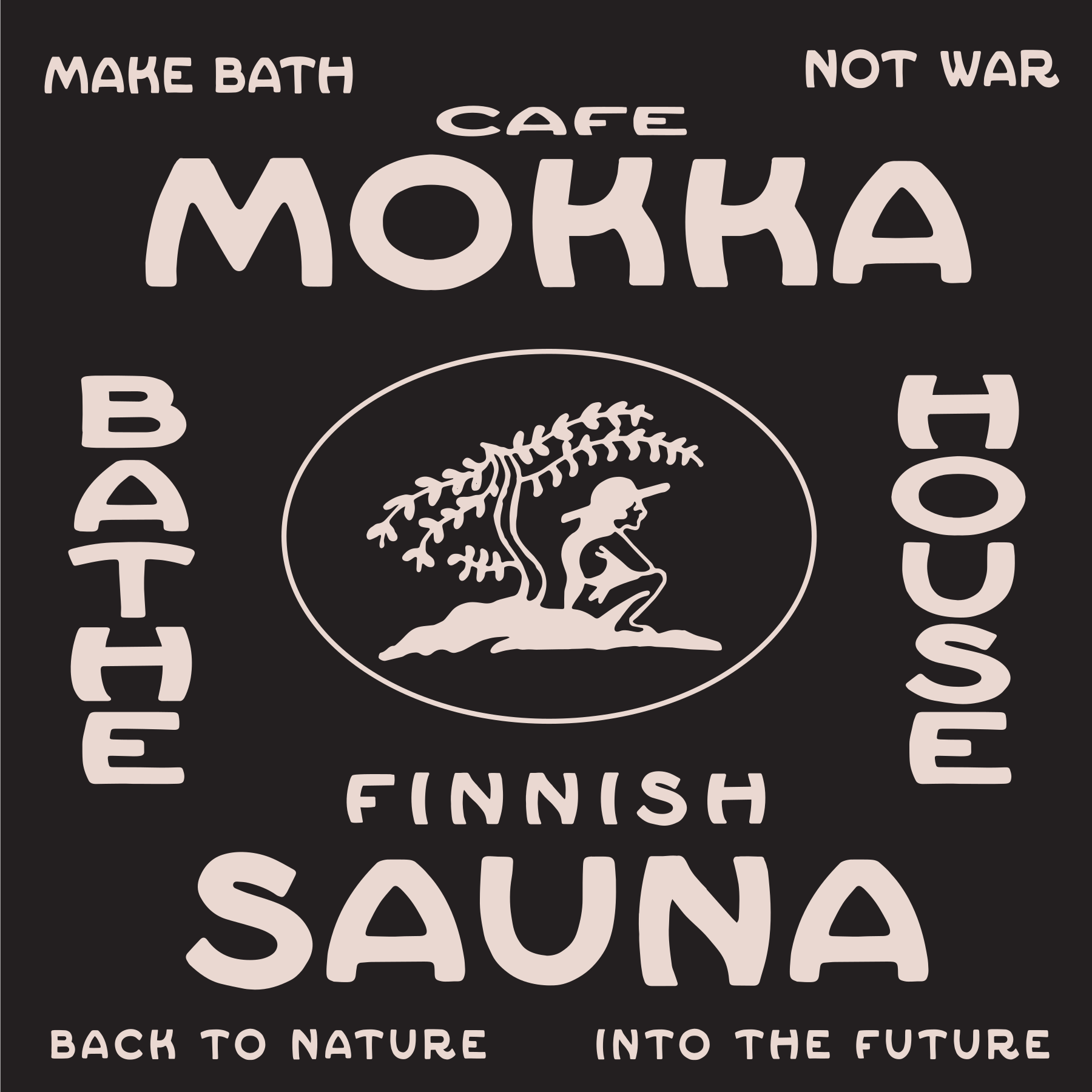
Yarrow
WHAT DO YOU GET WHEN YOU THROW A BIT OF DUST FROM WEST TEXAS, SOME DRIED HERBS FROM MEXICO, AND ADD A LITTLE RAINWATER FROM THE SONORAN DESERT INTO A BUCKET AND STIR? YARROW. A FONT THAT ROAMS THE HILLS, VALLEYS AND OPEN ROADS OF THE HIGH DESERT.